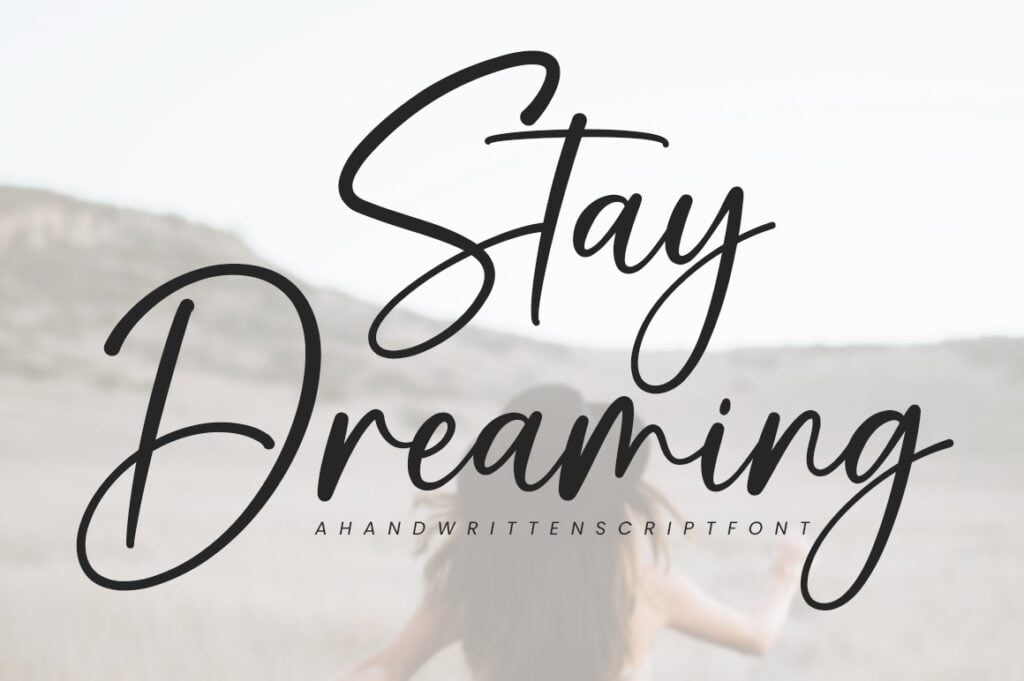
Stay Dreaming Font
Stay Dreaming is a smooth and beautiful Handwritten Script font that was crafted & designed by RasdiType. Stay Dreaming Font has regular contrast strokes, along with fun letters that feature a rich of alternates and ligatures. This Script font has an incredibly versatile style and you can use it to design spectacular projects.
Stay Dreaming Script Font looks perfectly for branding, logos, invitations, wedding stationery, lovey cards, business cards, and other modern projects.
Stay Dreaming Handwritten Script Font